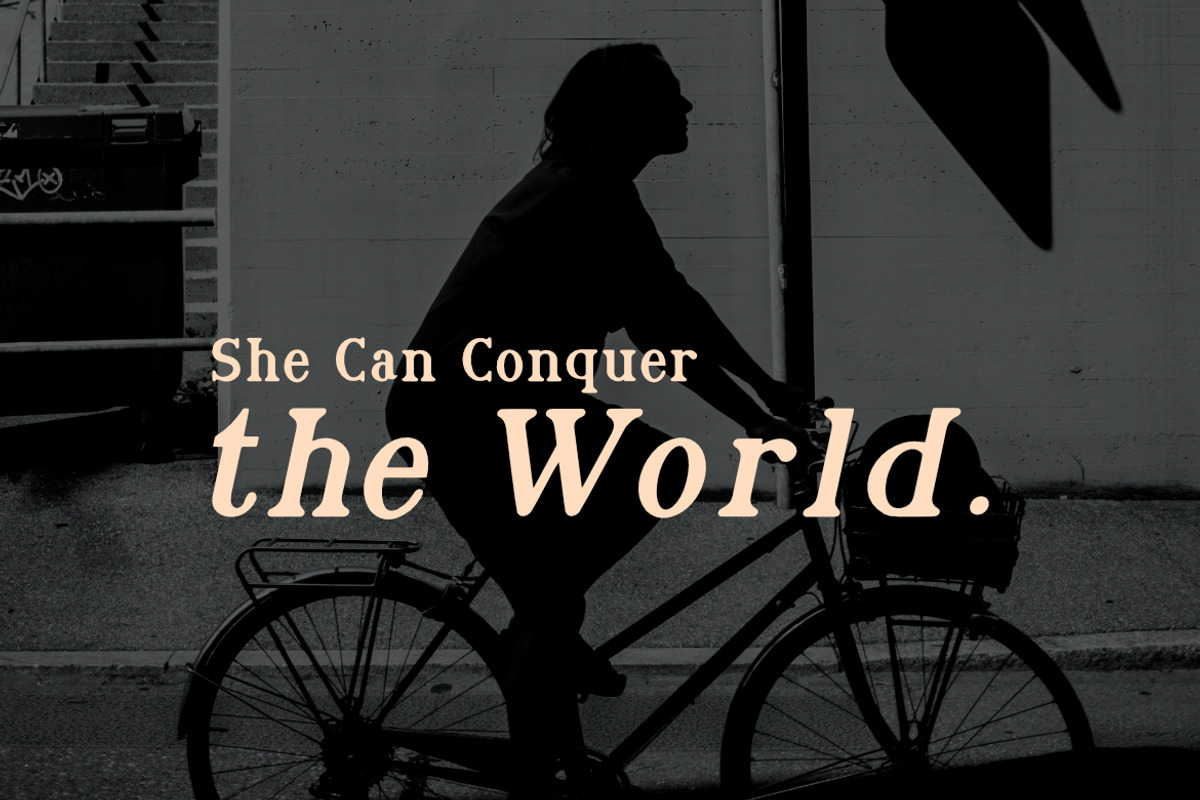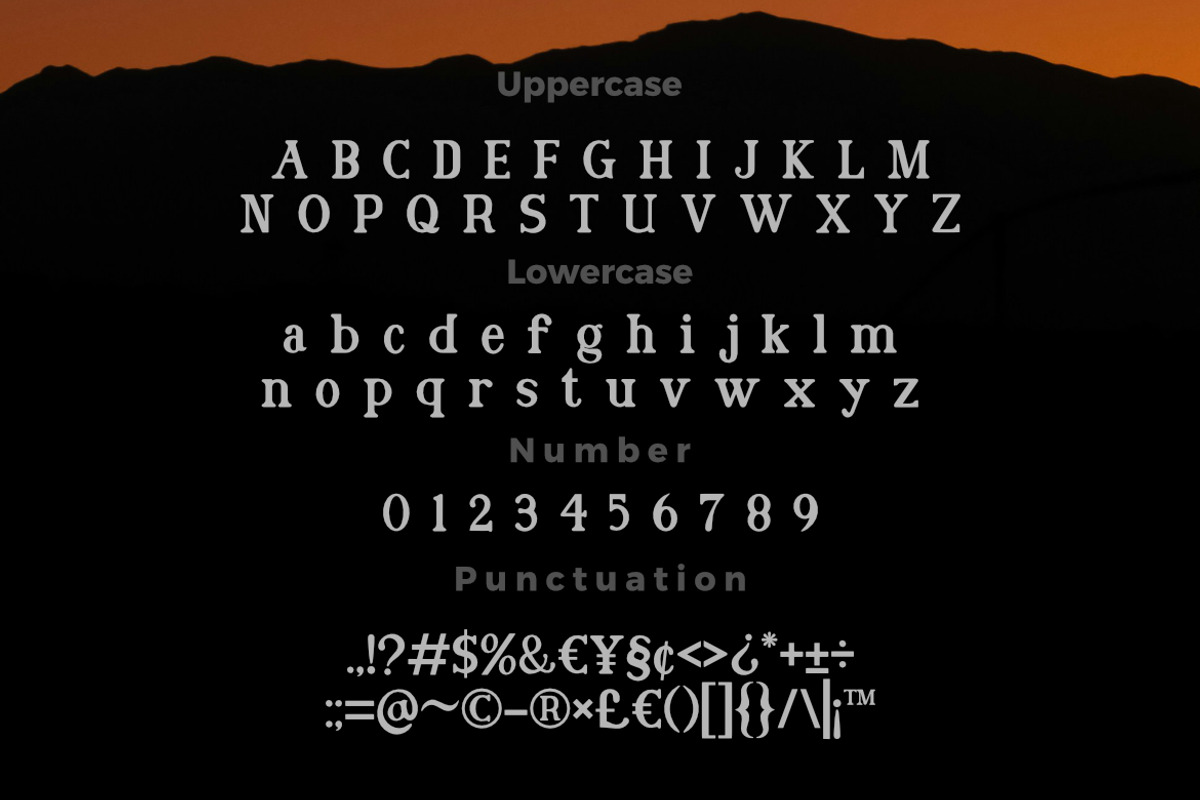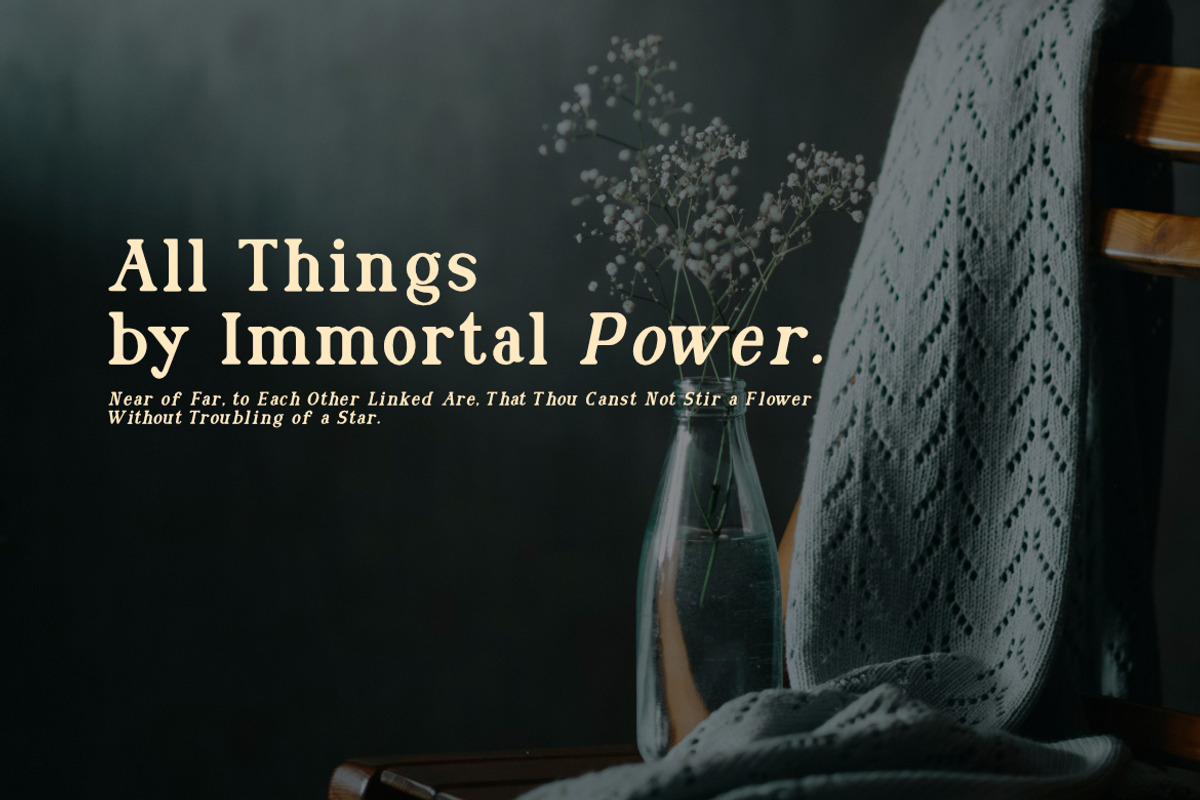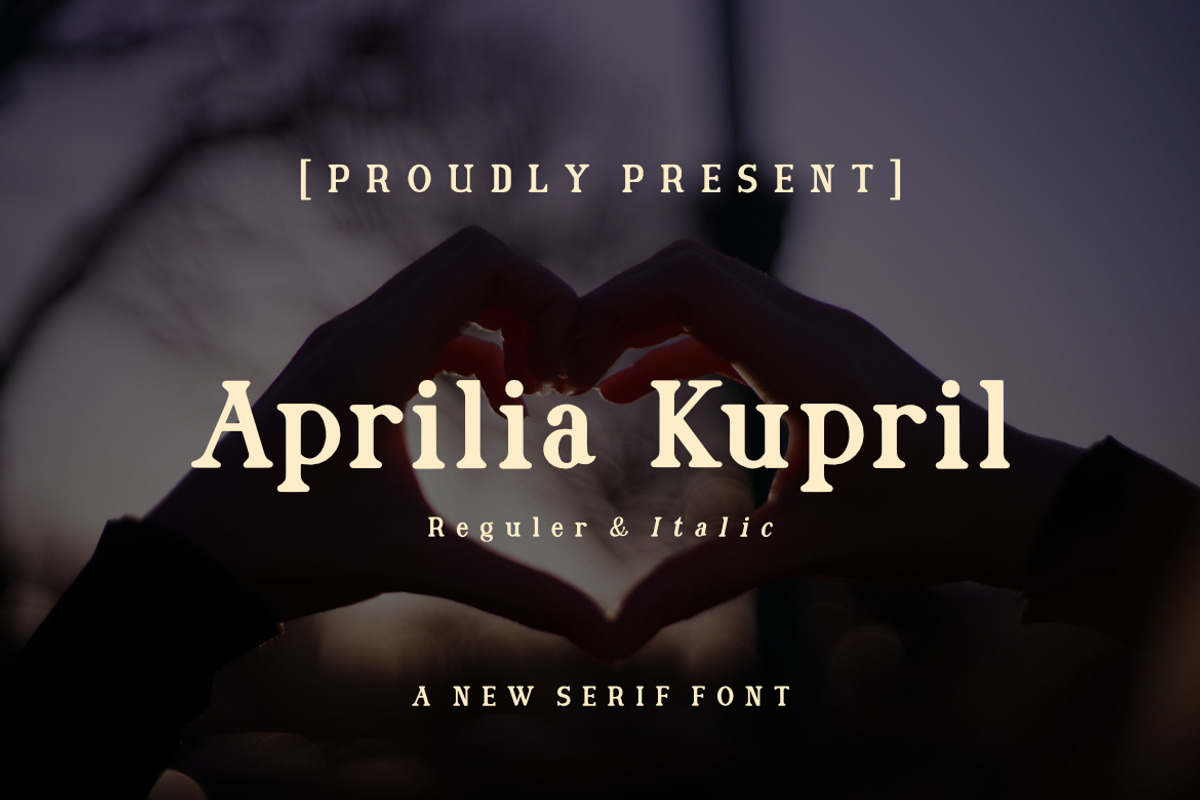
Aprilia Kupril Serif Font
Aprilia Kupril Serif Font, inspired by serif modern typography. This font is made with a high premium quality level which you can use as flyers, quotes, posters, banners, packaging, merchandise, logotypes and much more.